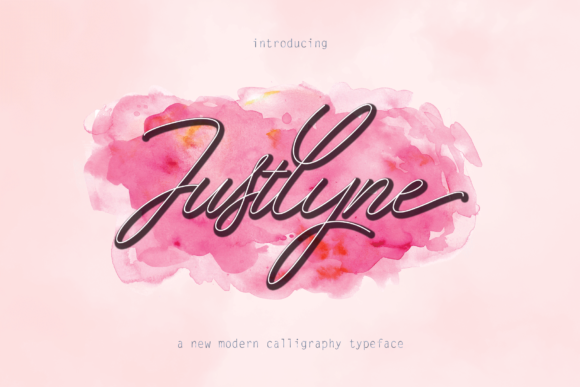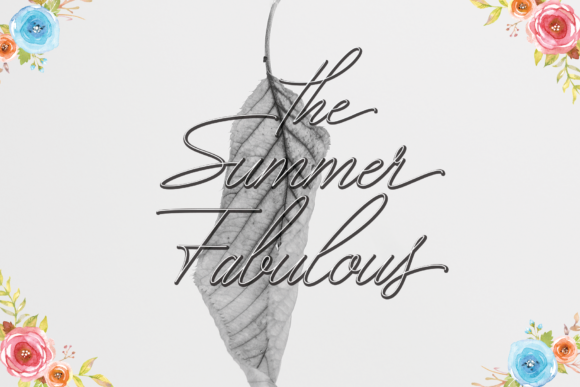
Justlyne Font
About Justlyne Font
Justlyne is a lovely, modern typeface, which updates classic calligraphy with a contemporary twist. It includes initial and terminal letters, alternates, ligatures and multiple language support.